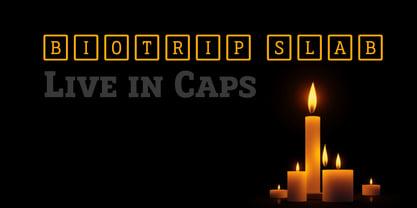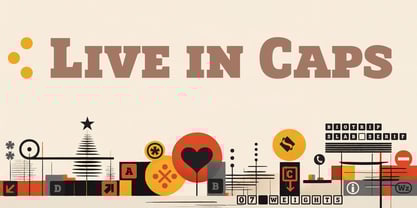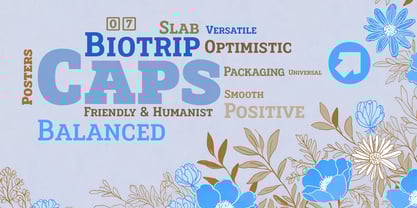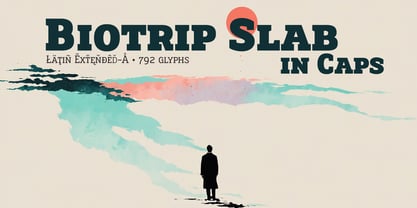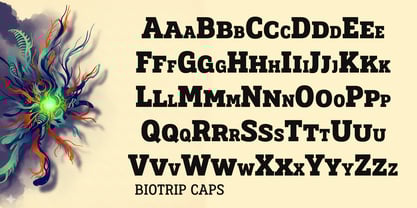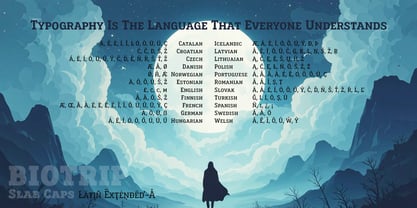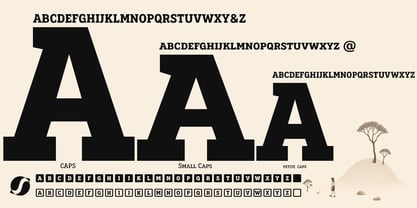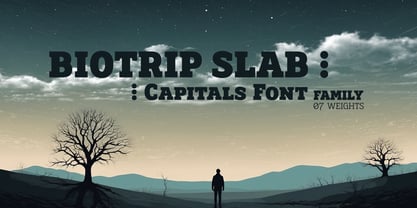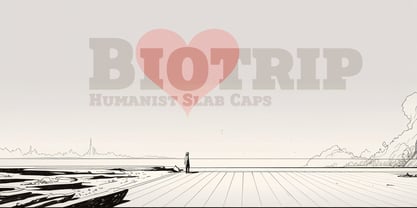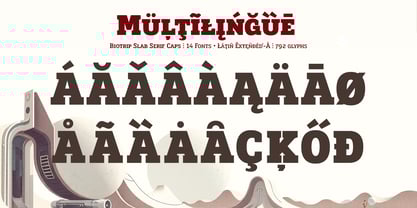
Biotrip Serif Caps
by deFharo
The Biotrip Serif Caps Font Family was designed by Fernando Haro and published by deFharo. Biotrip Serif Caps contains 7 styles and family package options. More about this family
Biotrip Serif Caps, the small caps and uppercase version of Biotrip Serif, is a natural extension within the Biotrip Universe. This is a journey that began with Sans and found its weight and character in Serif. Biotrip Serif Caps is a multipurpose typeface designed with meticulous care to offer legibility, balance, and character. The family includes seven weights—Light, Regular, Medium, Semi Bold, Bold, Extra Bold & Black—that allow for the construction of solid hierarchies without losing visual coherence. From the understated elegance of Light to the resounding and undeniable presence of Black, each weight is a nuance, an inflection of that same majestic voice. Each weight maintains the geometric tension of Biotrip Serif—that unique combination of slab serifs at the base and lapidary serifs at the top. The result is a typeface that has weight, that has a physical presence, but that never loses its organic warmth. Editorial design, brochures, posters, signage, logos, product packaging, wayfinding, corporate image. Biotrip Serif Caps is designed to move seamlessly between all these worlds.
Biotrip Serif Caps